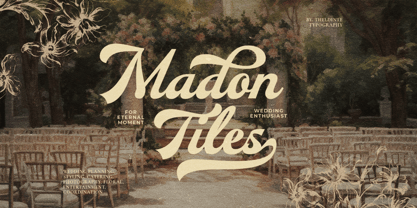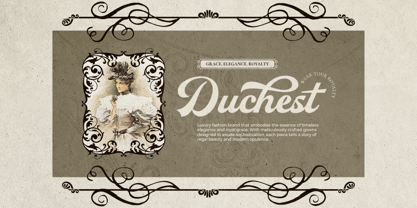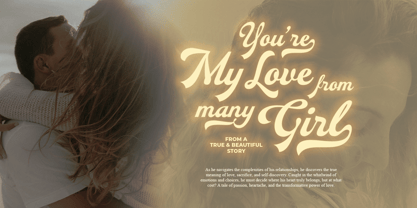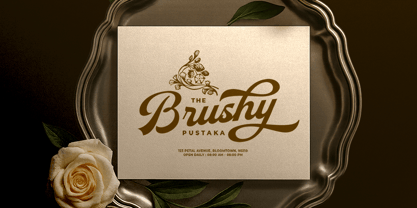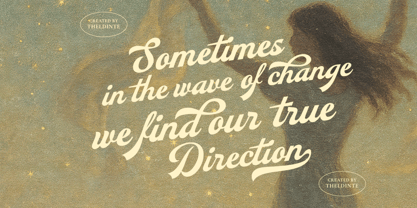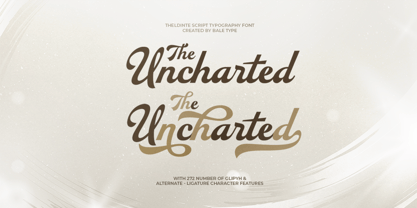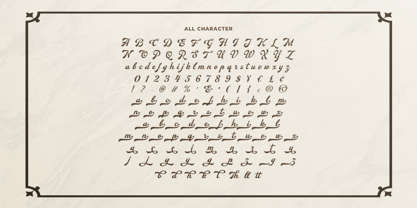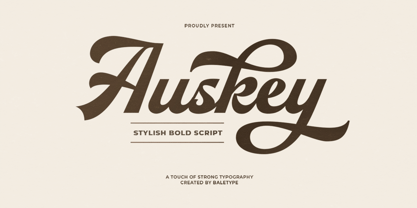
Auskey
by Bale Type
The Auskey Font Family was designed by Dzikrul Aulia and published by Bale Type. Auskey contains 1 styles.
Auskey is a bold and clean script with a unique and stylish style that brings a retro and elegant charm to your designs. Perfect for logotypes, quotes, branding, and even wedding invitations, this font adds character and personality to any project. It includes a variety of alternates to help you create eye-catching compositions with ease. Plus, it supports multiple languages, making it versatile and ready for any creative use.